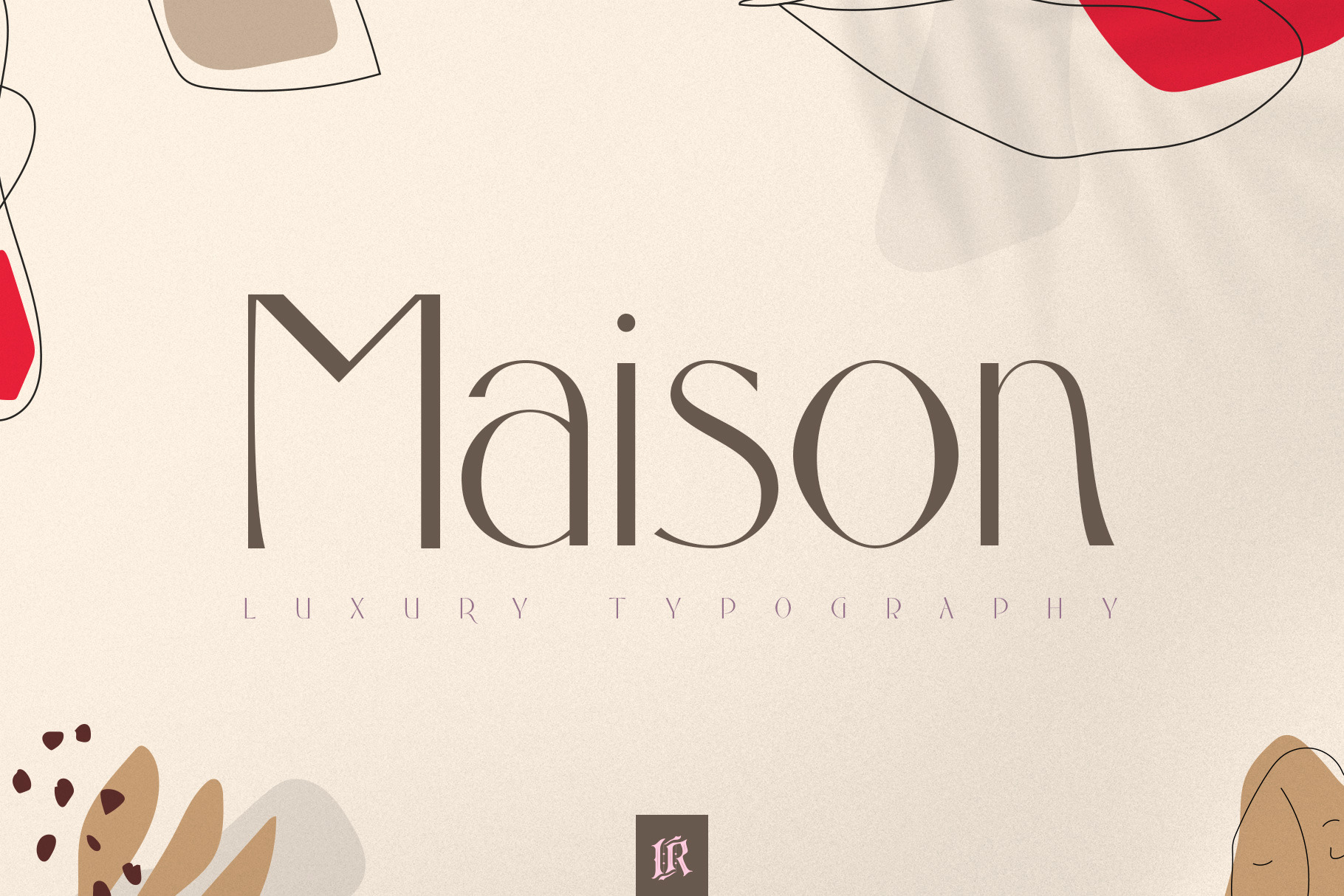
Maison is a unique sans serif font inspired by fashion illustrations from the 19th century. I have added 100+ vector abstract fashion illustrations that fit perfectly with Maison Font. There are also 16 premade scenes, all in Adobe Illustrator .AI format. premade illustrations. Maison Font and abstract illustrations are perfect for posters, blog sites, branding, weddings and many more.